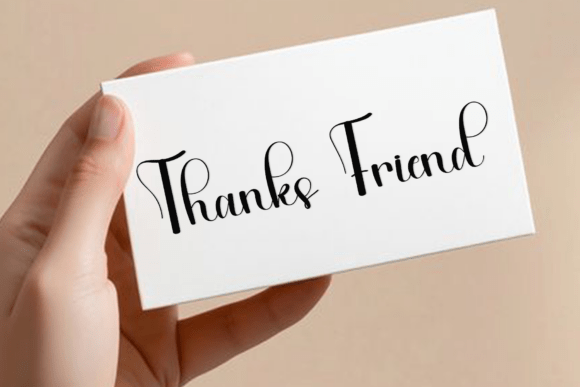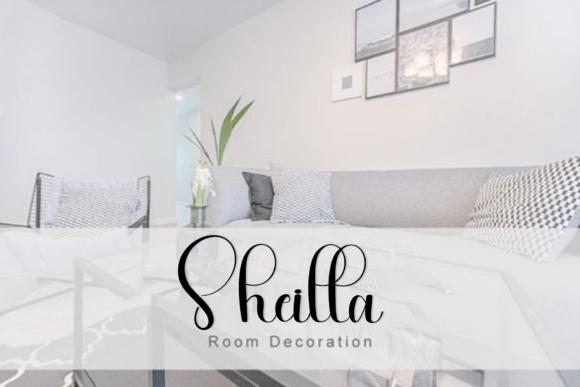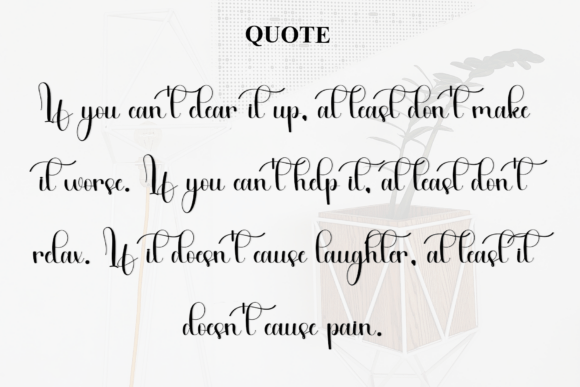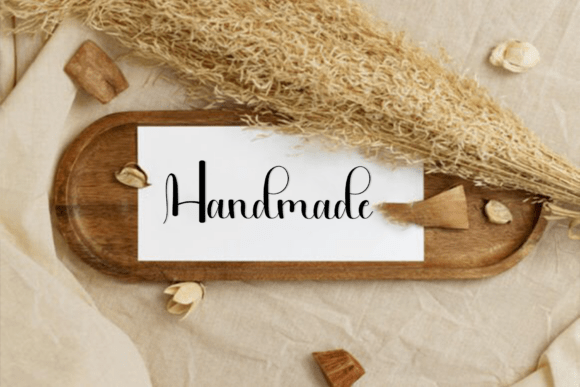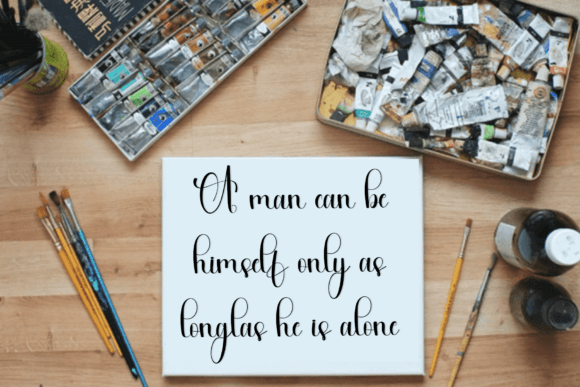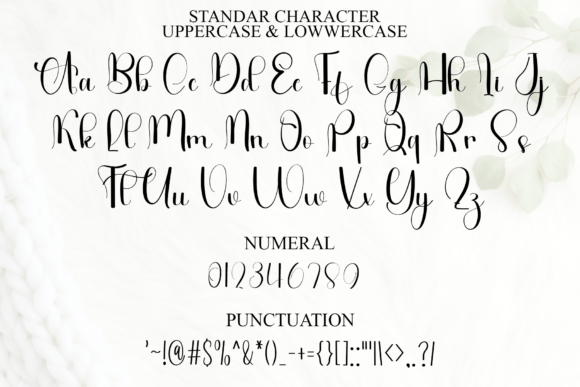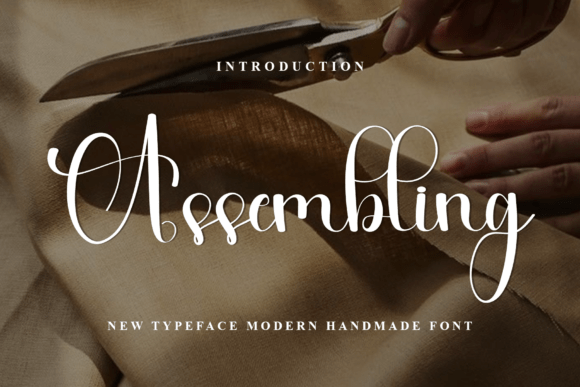
Introducing Assembling Font: The Perfect Blend of Warmth and Creativity
In the world of typography, fonts play a crucial role in conveying the tone and personality of a design. For designers and crafters looking for a font that exudes warmth and friendliness, Assembling Font is an excellent choice. This casual and creative font is designed to add a relaxed and approachable feel to any project, making it perfect for personal projects, invitations, social media graphics, and more.
The Characteristics of Assembling Font
Assembling Font boasts round, playful strokes that create a charming and laid-back vibe. Its hand-drawn aesthetic adds a fun and unique touch to any design, making it stand out from more traditional fonts. The font’s relaxed and approachable feel makes it ideal for designers who want to create a sense of warmth and connection with their audience.
What Makes Assembling Font Special?
Assembling Font is equipped with standard PUA Encoded glyphs, which are designed to work seamlessly with various application engines, including Adobe Photoshop, Corel, Adobe Illustrator, Canva, and many others. This means that designers can use Assembling Font across multiple platforms and software, making it a versatile and convenient choice.
Assembling Font is a dream come true for designers and crafters who want to add a personal touch to their projects. Whether you’re creating invitations, social media graphics, or personal projects, Assembling Font is the perfect choice. Its unique and charming aesthetic will add a touch of warmth and friendliness to any design, making it perfect for:
- Personal projects, such as photo albums, scrapbooking, and journaling
- Invitations, such as birthday parties, weddings, and baby showers
- Social media graphics, such as blog posts, Facebook posts, and Instagram stories
- Branding and packaging, such as logos, business cards, and product labels
Tips for Using Assembling Font
To get the most out of Assembling Font, here are a few tips:
- Use it for headlines and titles to add a touch of personality and whimsy
- Pair it with other fonts to create a unique and interesting contrast
- Experiment with different colors and textures to add depth and visual interest
- Use it for body text to create a friendly and approachable feel
Assembling Font is a unique and charming font that is perfect for designers and crafters looking for a warm and creative typography solution. Its hand-drawn aesthetic, playful strokes, and versatility make it an excellent choice for a wide range of projects. With its standard PUA Encoded glyphs and compatibility with various application engines, Assembling Font is a convenient and practical choice for designers and crafters of all levels.